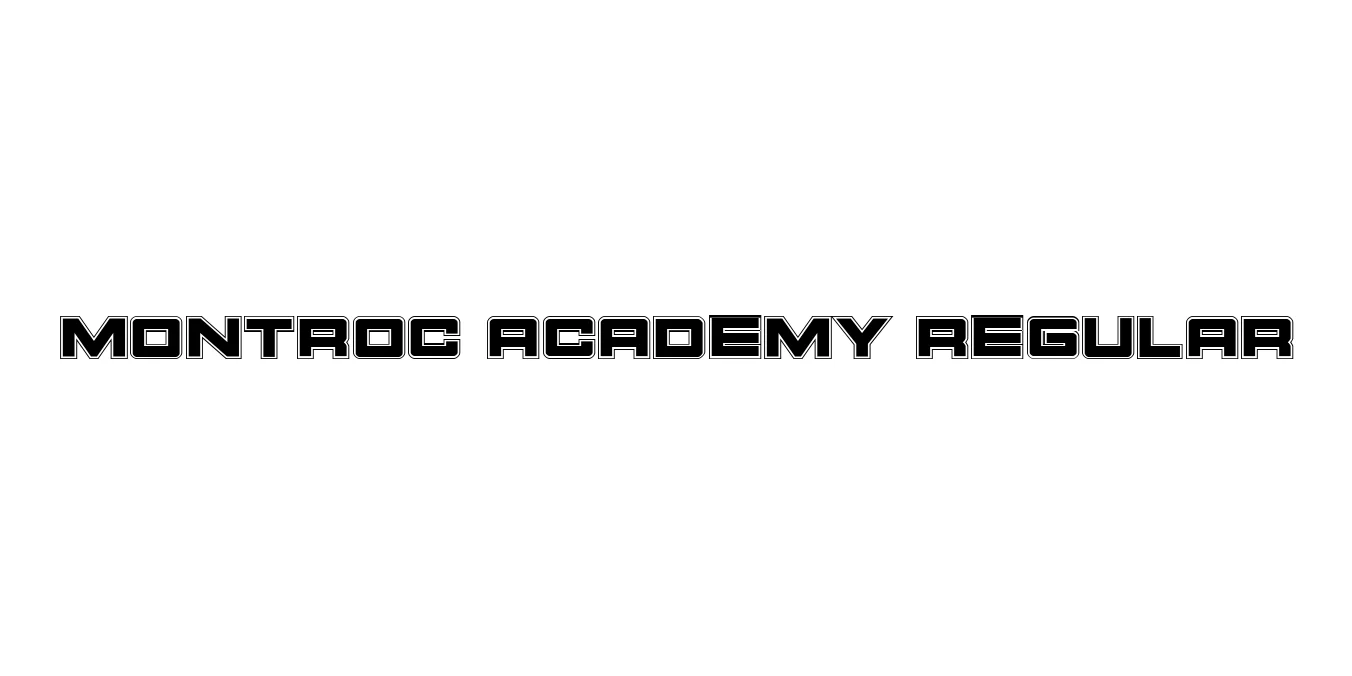
Montroc Academy Regular
Designed by Dan Zadorozny
| Font Name | Montroc Academy |
| Category | Techno / Display |
| Designer | Dan Zadorozny |
| Similar Fonts | Eurostile, Michroma, Bank Gothic |
Montroc Academy Regular is a bold, futuristic typeface designed by Dan Zadorozny of Iconian Fonts. It masterfully blends traditional college sports aesthetics with modern, technological sci-fi elements. The font features wide, expansive proportions and sharp, chamfered angles that provide a sturdy and authoritative presence, making it an excellent choice for high-impact headers and digital interfaces.
This typeface has grown in popularity among designers seeking to bridge the gap between athletic branding and futuristic motifs. Its clean lines and consistent stroke weights ensure high legibility while maintaining a distinct stylistic edge. It is frequently employed in gaming UI, cinematic titles, and street-style apparel design due to its versatile and modern-retro appearance.
Montroc Academy Regular Best Uses
Perfect for creating impactful team logos and jersey numbering.
Ideal for title screens and futuristic heads-up displays in sci-fi titles.
Great for large-scale headers that need to capture immediate attention.
Used widely in street fashion for bold, graphic-heavy garment prints.